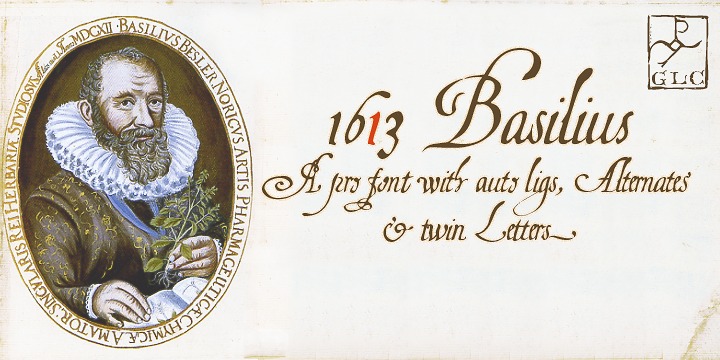
• 1613 Basilius
This family was created inspired from the typeface models hand drawn circa 1610s by Basilius Besler (Germany) for the carved plates of his spendid “Hortus eystettensis”, a botanical manual, masterpiece of the period.
This “Pro” font contains standard ligatures & numerous alternates, usable for Western, Central and Eastern Europe, Baltic and Turkish.